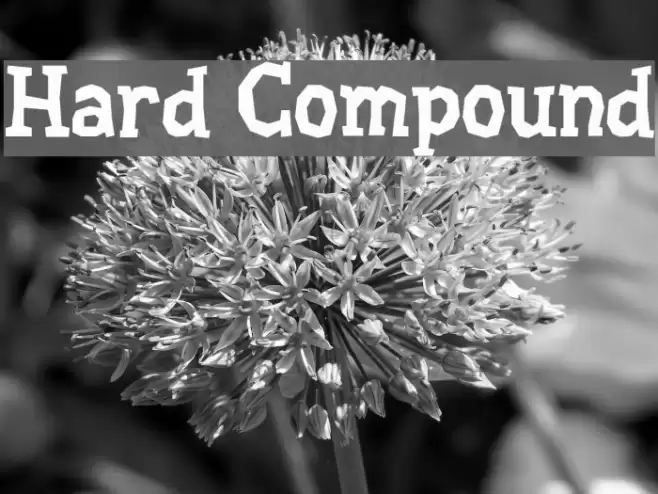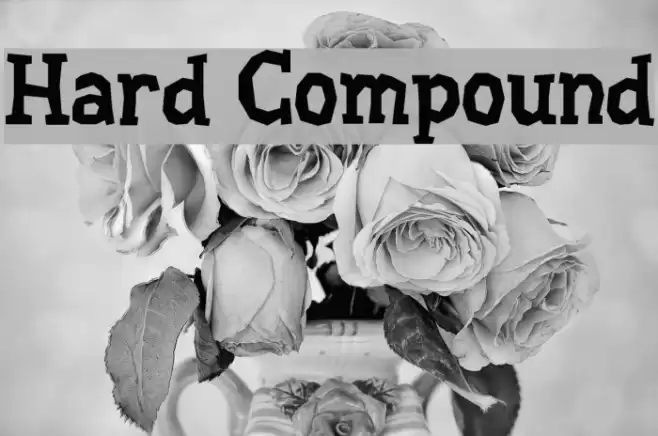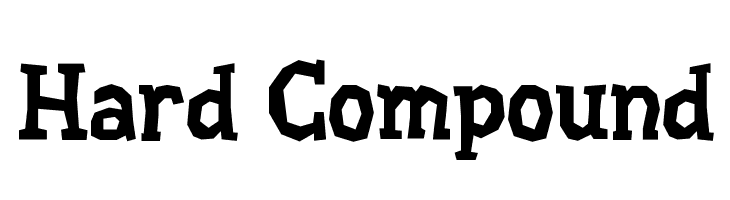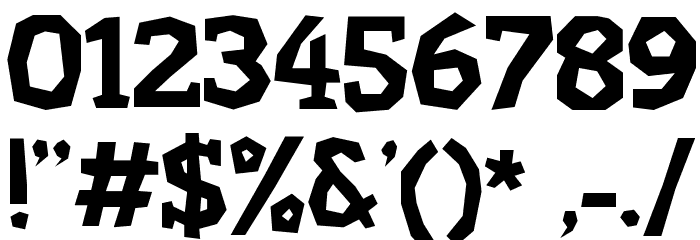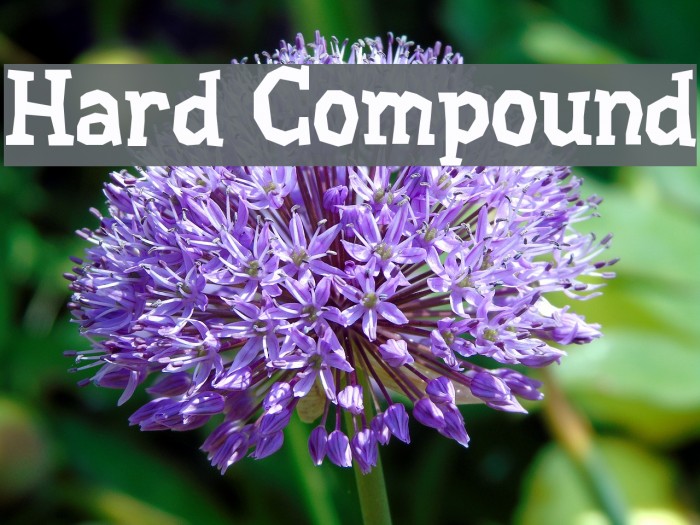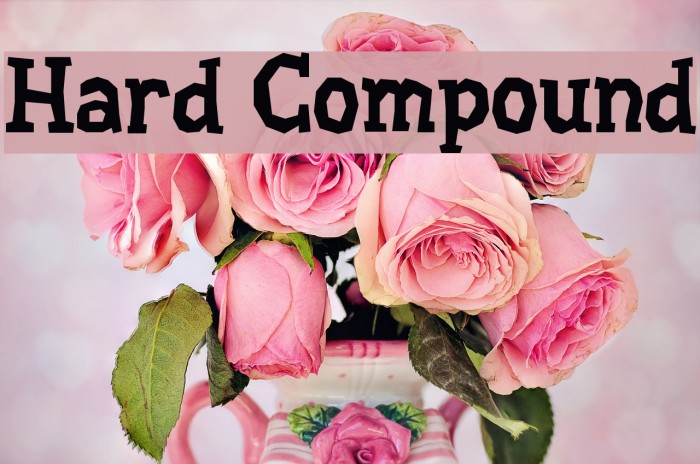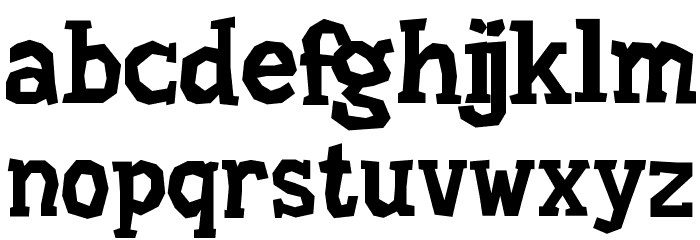
Hard Compound Font
Hard Compound Description
This font features a bold and rugged design, characterized by its angular and geometric shapes. The letters have a strong presence with thick strokes and sharp edges, creating a sense of strength and durability. The uppercase and lowercase letters maintain a consistent style, with the lowercase letters slightly more compact. Numbers and special characters follow the same bold and angular aesthetic, ensuring uniformity across all glyphs. The font's unique style makes it stand out, offering a distinctive look that is both modern and industrial.
A bold, angular font with a rugged, geometric design from Crazy fonts.
- Proposed Projects: Ideal for projects requiring a strong and industrial look, such as branding for construction companies, outdoor gear, or sports teams.
- Overall Style: Modern, Industrial
- Use Case: Headlines, Logos, Branding